11 Best Canva Display Fonts for Eye-Catching Designs
Finding the best Canva Display Fonts to elevate your visual projects is now easier than ever! Whether you are a professional content creator or a passionate DIY designer, selecting the right typography for your eye-catching graphic designs can completely transform how your audience perceives your brand. In this ultimate curated guide, we have handpicked 11 spectacular, show-stopping options to help your text pop off the screen with pure style and personality.
Preppycrush Font: A Cheerful Masterpiece for Canva Display Fonts Collectors
Unleash a wave of irresistible pastel charm onto your digital canvas with Preppycrush, a delightful and totally confident all-caps typeface crafted to balance sweet vibes with modern style. Featuring handwritten, lowercase-inspired forms that deliver a clean yet bubbly look, this playful selection stands out as a highly versatile addition to your curated collection of Display Fonts.
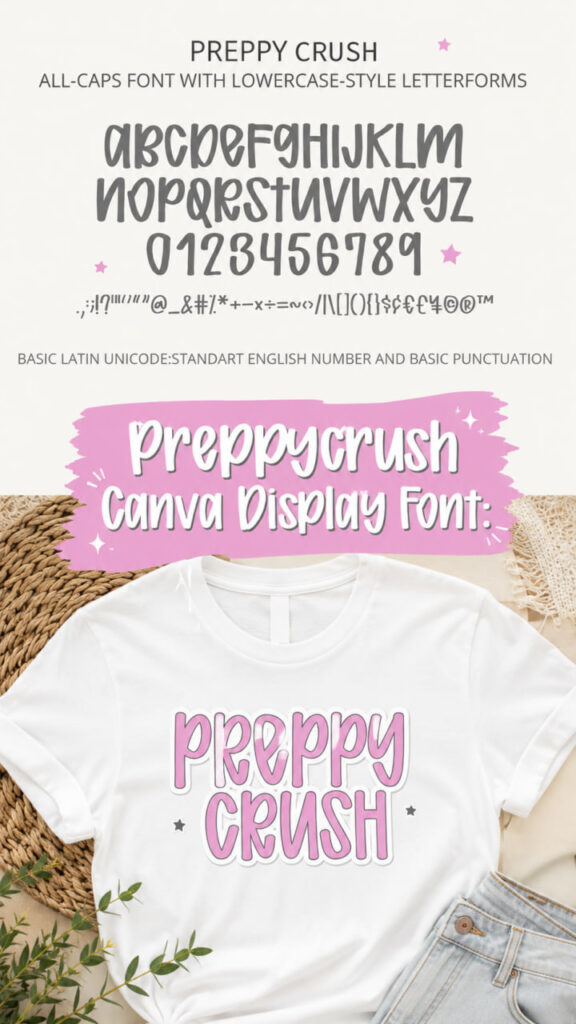
It serves as the ultimate tool for designing chic teen apparel, cozy digital journals, custom planner stickers, and aesthetic social media graphics directly in Canva. Beyond its charming preppy attitude, Preppycrush offers seamless versatility for both digital and physical crafts, making it an incredibly easy-to-use option for personalizing everything from classroom decor to motivational quotes. Bring this bubbly favorite into your creative toolkit today, and watch your everyday designs instantly radiate a cheerful, trend-setting vibe!
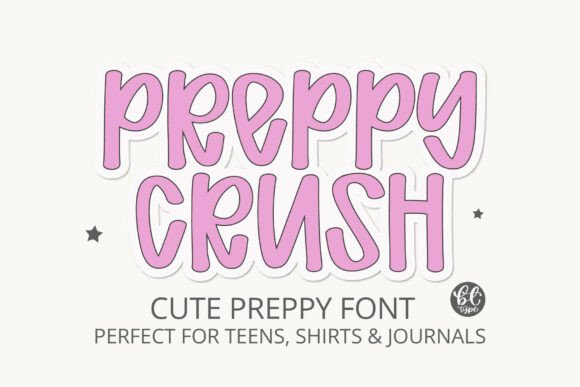
Greek Odyssey Font: A Classic Masterpiece for Display Fonts Collectors
Transport your visual designs to the majestic heights of classical antiquity with Greek Odyssey, a Roman Greek-inspired pinnacle of elegance and timeless sophistication. Featuring assertive, geometric letterforms that paint vivid images of immaculate marble sculptures and historic Grecian columns, this striking typeface serves as a powerful, character-filled addition to your curated library of Display Fonts.
With both Bold and Lite styles at your disposal, this highly versatile design offers a rich diversity of expressions to help you craft stunning layouts directly in Canva. It is the absolute perfect choice for styling high-end fashion branding, romantic wedding invitations, captivating poster layouts, and insightful educational materials. Best of all, Greek Odyssey is fully PUA encoded and loaded with alternates, multilingual symbols, and various file formats, ensuring you can easily access its decorative elements across all major digital platforms and physical cutting machines.
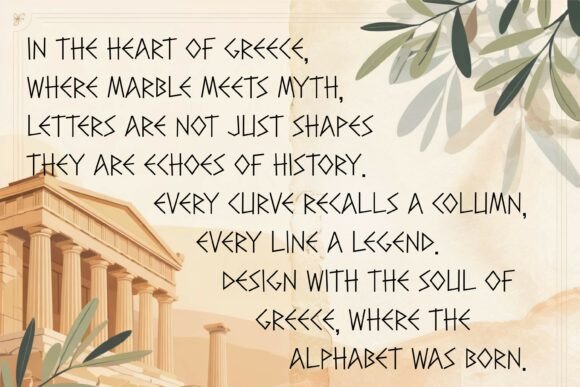
Burning Flame Font: A Fiery Choice for Canva Display Fonts Collectors
Ignite a blazing fire of visual excitement on your next design canvas with Burning Flame, a bold and fiery typeface engineered to bring unmatched heat, raw energy, and high-octane impact to your creations. Featuring striking, flame-inspired details embedded directly into every single character, this sizzling selection stands out as a spectacular, head-turning addition to your curated library of Display Fonts.
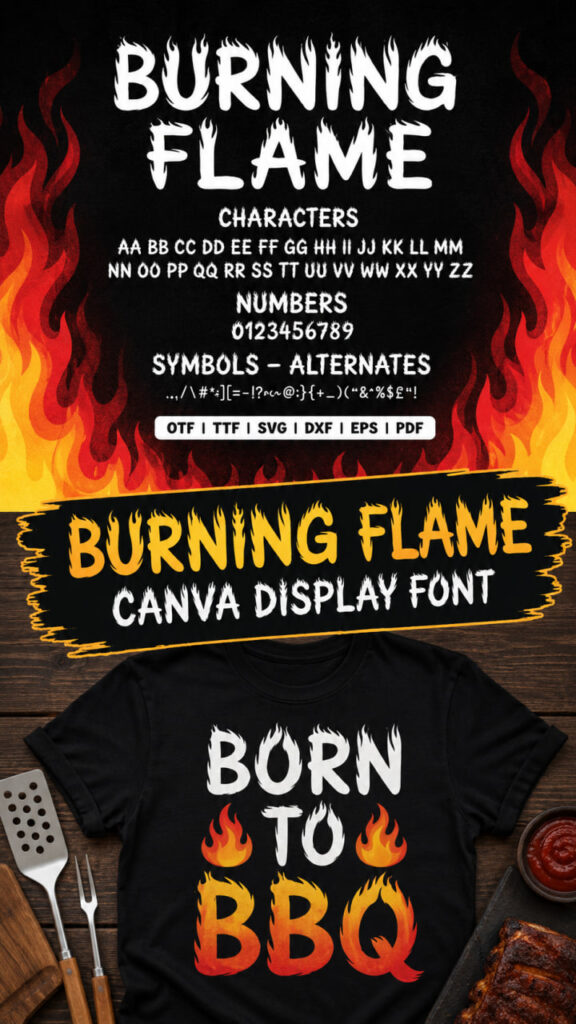
It serves as the ultimate tool for designing smoky backyard BBQ invitations, hot summer party signage, custom grilling aprons, and daring streetwear apparel. Beyond its intense, eye-catching look, Burning Flame offers incredible multi-platform flexibility, allowing you to easily craft bold posters and digital artwork directly in Canva, or execute flawless physical cutting projects for hoodies, mugs, and camping gear on your favorite digital crafters.
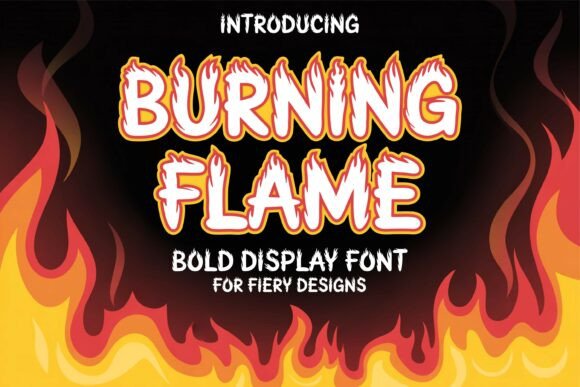
Warix Font: A Futuristic Masterpiece for Canva Display Fonts Fans
Blast your designs straight into the next millennium with Warix, a cutting-edge typeface that perfectly encapsulates the sleek minimalism of cyberpunk aesthetics and high-tech elegance. Combining sharp angles with decorative cybernetic flourishes, this hyper-modern selection serves as a stunning, sci-fi-infused addition to your personal collection of Display Fonts.
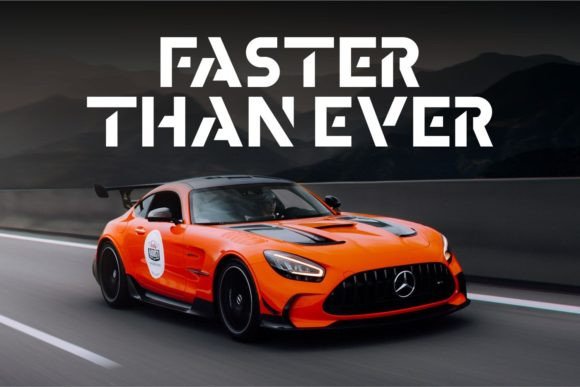
Designed to invite creators to look far into the digital frontier, it draws inspiration from space exploration and galaxy-themed visuals to make your titles look incredibly sophisticated and progressive. Whether you are crafting striking graphics in Canva, building immersive projects in Procreate, or designing digital branding in Photoshop, Warix provides the perfect futuristic touch for posters, tech-wear apparel, and next-generation logos.
Cute Dreams Font: A Whimsical Favorite for Canva Display Fonts Lovers
Imagine wrapping your creative ideas in a soft, cloud-like blanket of pure joy with Cute Dreams, a wonderfully casual and imaginative typeface designed to radiate warmth and friendliness. Featuring soft, rounded strokes and a relaxed, hand-drawn aesthetic, this charming option stands out beautifully in your collection of Display Fonts, making it an absolute breeze to create approachable and heartfelt layouts. Whether you are designing personalized birthday invitations, sweet greeting cards, or whimsical social media graphics in Canva, its fully PUA-encoded characters ensure that adding a fun, customized touch to your favorite projects is always simple, playful, and completely stress-free.
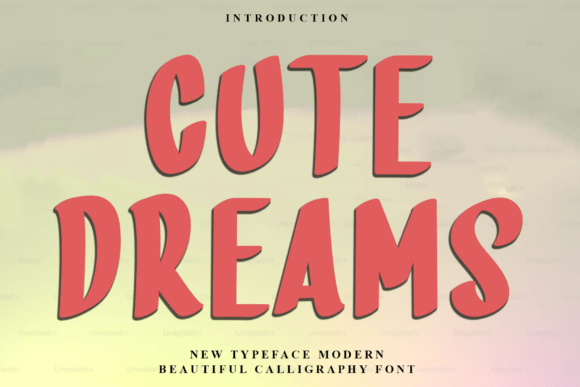
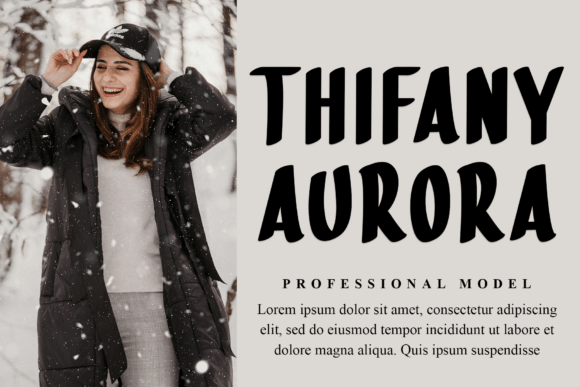
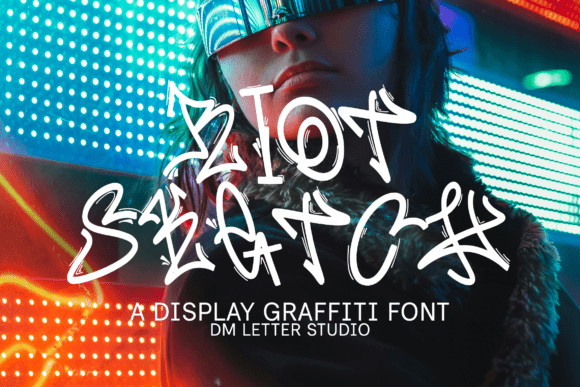
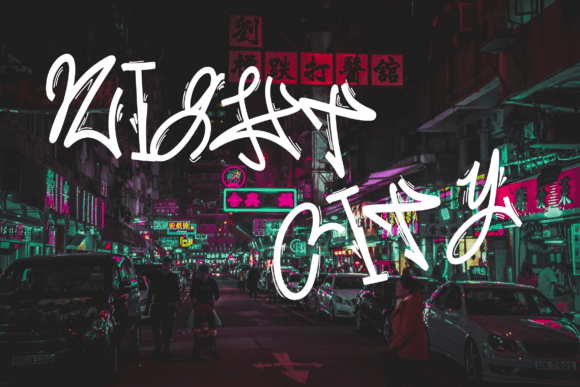
Haven’t Found Your Ultimate Canva Display Fonts Companion Yet?
Don’t fret if the perfect match hasn’t leapt off the screen at you just yet! Selecting the absolute ideal typography is a unique creative journey, and your search certainly doesn’t have to end here. We have put together a fantastic variety of other inspiring Canva Fonts roundups right here on the blog to help you keep experimenting with fresh styles. Plus, you can instantly dive into a massive library of premium, professional-grade typography on our partner’s platform to secure the exact aesthetic your brand has been waiting for.